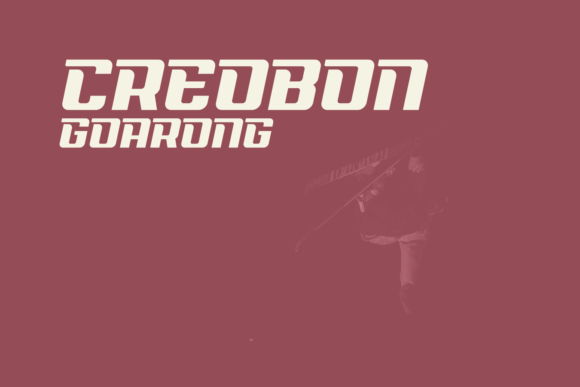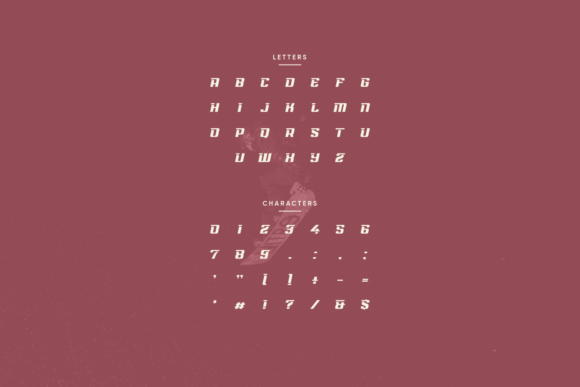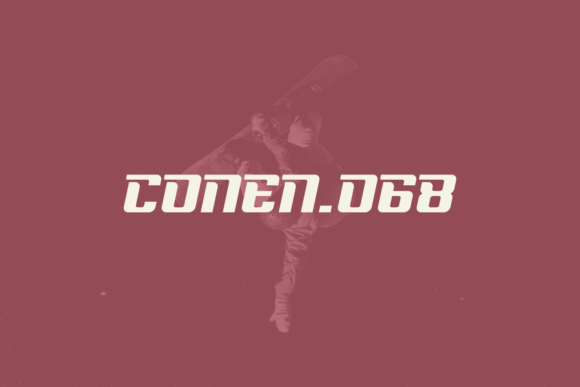
The Ultimate Sports Font: Geroca – A Fresh Take on Modern Typography
I’ll never forget the time I was working on a sports magazine project, and I just couldn’t find the right font to capture the energy and dynamism of the games. My client was adamant about having a modern, edgy look that would appeal to a young audience. That’s when I stumbled upon Geroca Font – a game-changer in the world of sports typography.
Geroca is a fresh sports font that embodies the spirit of competition and excitement. With its wide italics, modern letter cuts, and dynamic slant, it’s the perfect choice for any sports-themed design project. In this article, I’ll share my experience with Geroca, its features, and how to make the most of it in various design platforms.
An Honest Review of Geroca Font
What I Love About Geroca ✨
- ✅ Modern and edgy design: Geroca’s unique letter cuts and dynamic slant give it a bold, contemporary look that’s perfect for sports branding.
- ✅ Wide italics: The font’s wide italics add a touch of sophistication and elegance to any design.
- ✅ All-caps: Geroca’s all-caps design makes it ideal for headlines, titles, and emphasis.
- ✅ OpenType features: Geroca supports OpenType features, including glyphs and stylistic alternates, giving designers more creative freedom.
While Geroca is an excellent font, there are a few things to keep in mind:
- 🤔 Limited use in body text: Due to its bold design, Geroca might not be the best choice for body text. It’s better suited for headlines and titles.
- 🤔 Kerning issues: As with any font, some users have reported kerning issues in certain design platforms. However, these can usually be adjusted manually.
The Backstory Behind Geroca Font
Geroca was designed with the sports industry in mind. Its creator wanted to craft a font that would capture the energy and excitement of competition. With its modern letter cuts and dynamic slant, Geroca is the perfect choice for any sports-themed design project.
Q: What is Geroca Font best used for?
A: Geroca Font is ideal for sports-themed design projects, such as sports magazines, headlines, auto racing, logos, branding, monograms, and automotive designs.
Q: Can I use Geroca for body text?
A: While Geroca can be used for body text, it’s better suited for headlines and titles due to its bold design.
Q: Does Geroca support OpenType features?
A: Yes, Geroca supports OpenType features, including glyphs and stylistic alternates.
Q: Is Geroca suitable for branding and logos?
A: Absolutely! Geroca’s modern and edgy design makes it perfect for branding and logos.